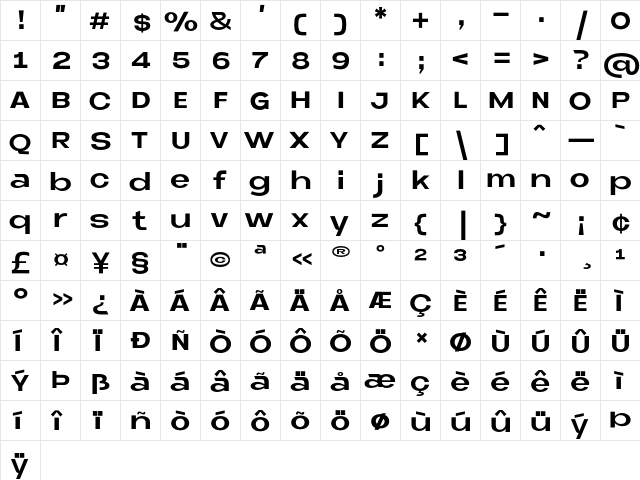
Neue Metana Bold
| Designer | Hendra Maulia , Aulia Rahman |
Design Context for Neue Metana Typeface
Neue Metana takes a measured approach to typography — its balanced proportions and neutral character make it a reliable workhorse for both digital and print work. Its bold stroke weight gives it real presence on the page.